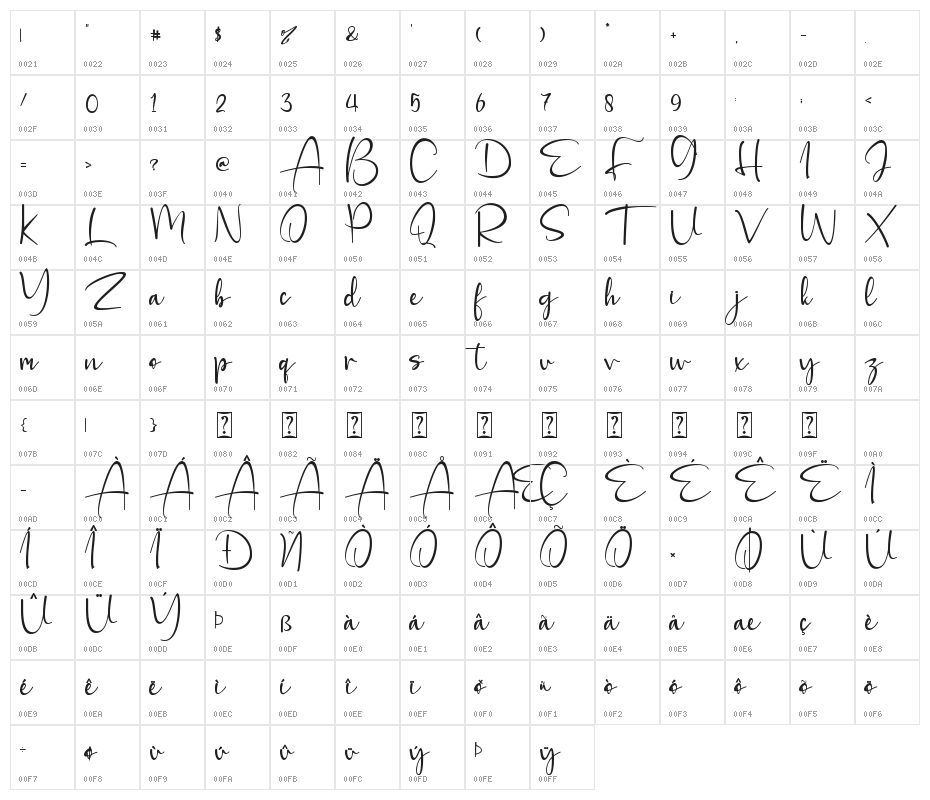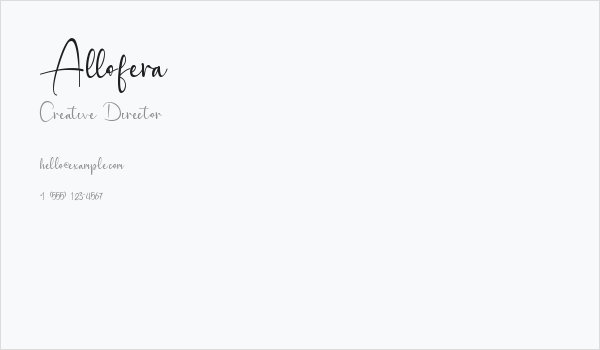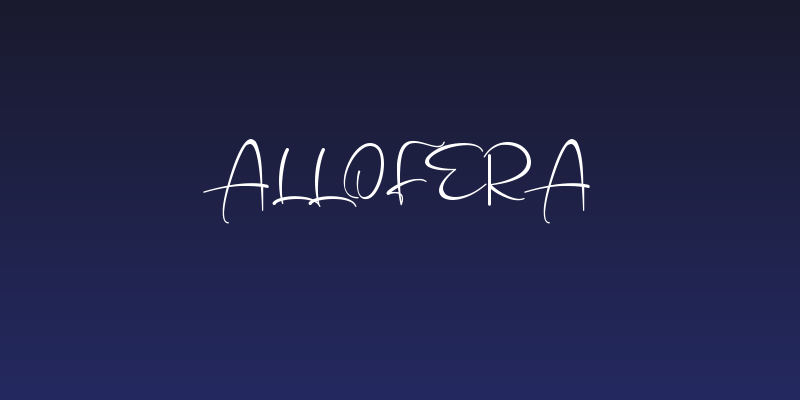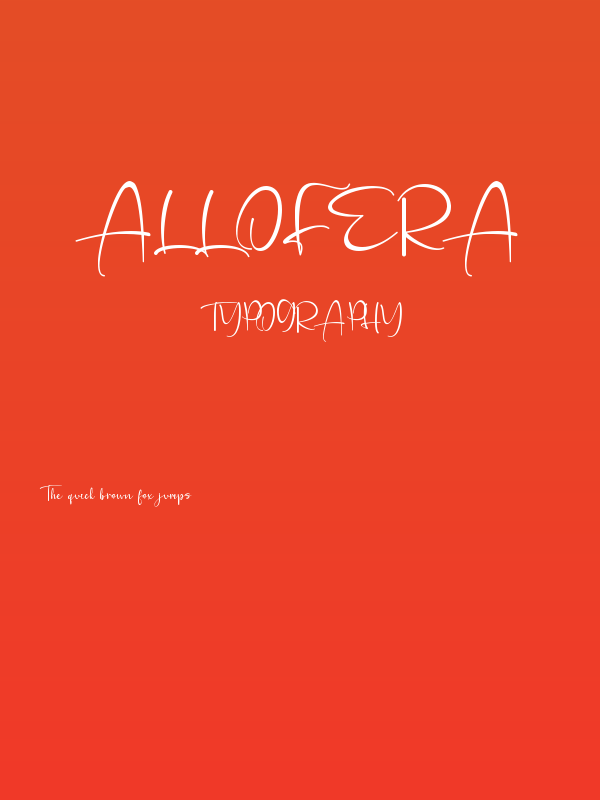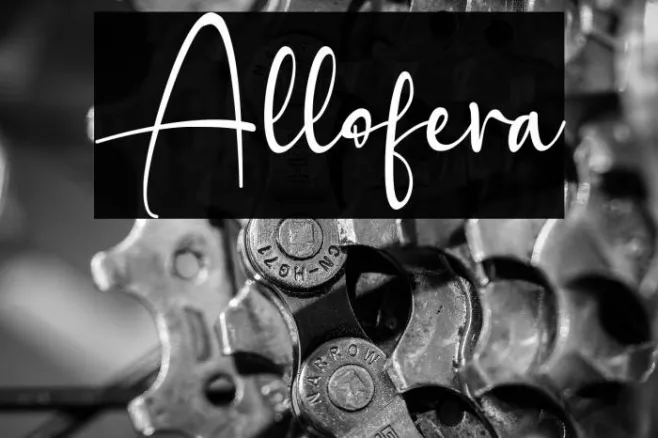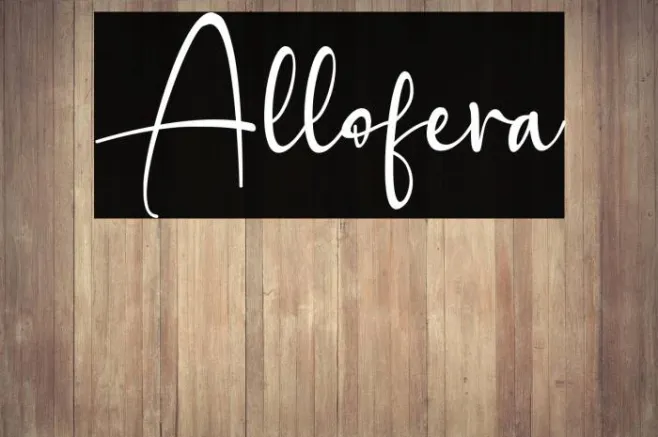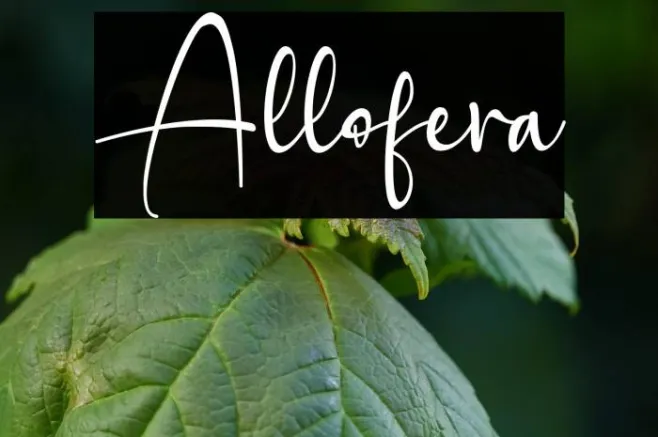
Allofera Font
Allofera Description
This font features a playful and elegant script style, characterized by its flowing, cursive letterforms. The uppercase letters exhibit a whimsical flair with varying stroke thickness, while the lowercase letters maintain a consistent, smooth flow. The numbers are clear and legible, complementing the overall aesthetic. Special characters are creatively integrated, adding to the font's versatility. The design is both modern and timeless, making it suitable for a variety of creative projects. Its handwritten appearance adds a personal touch, ideal for invitations, branding, and artistic designs.
| Use Case | Logos, Invitations, Artistic designs |
| Proposed Projects | Ideal for wedding invitations, branding, greeting cards, and artistic projects. |